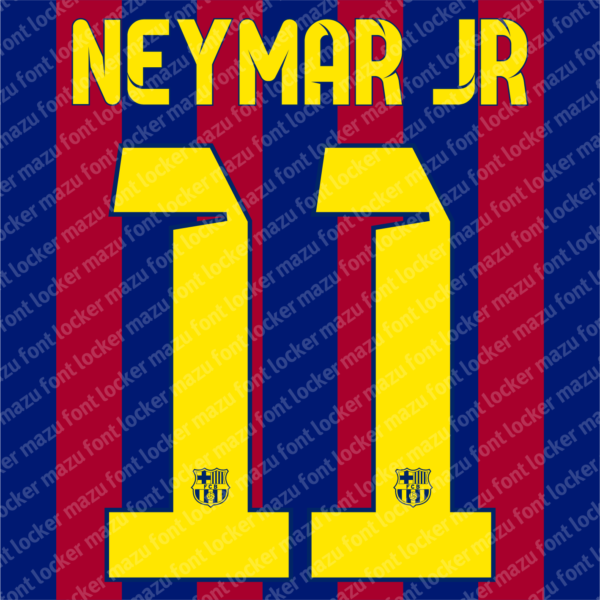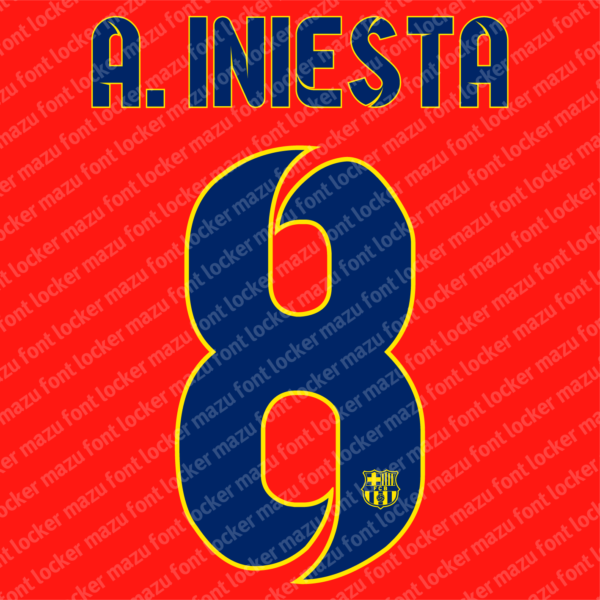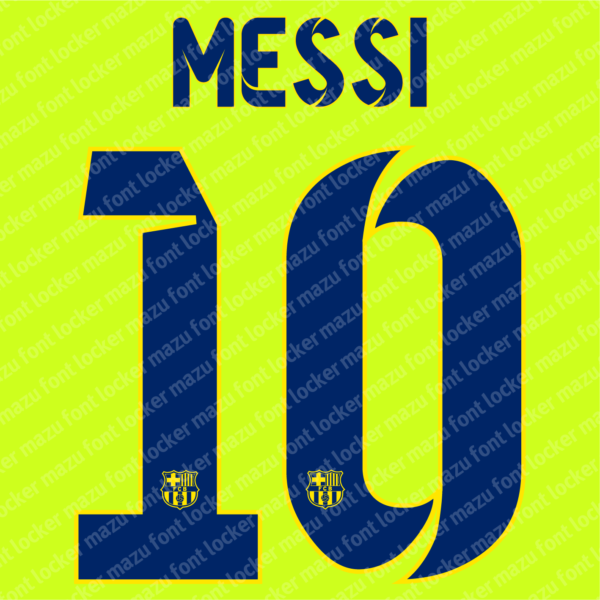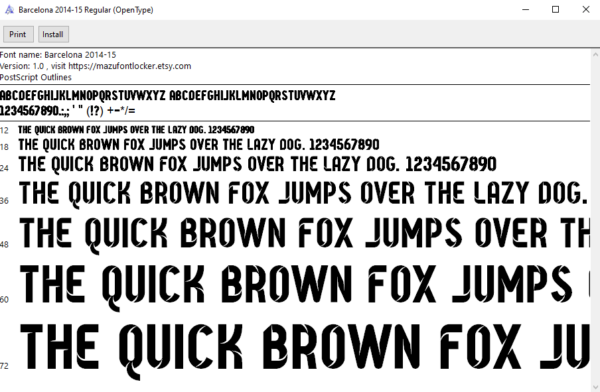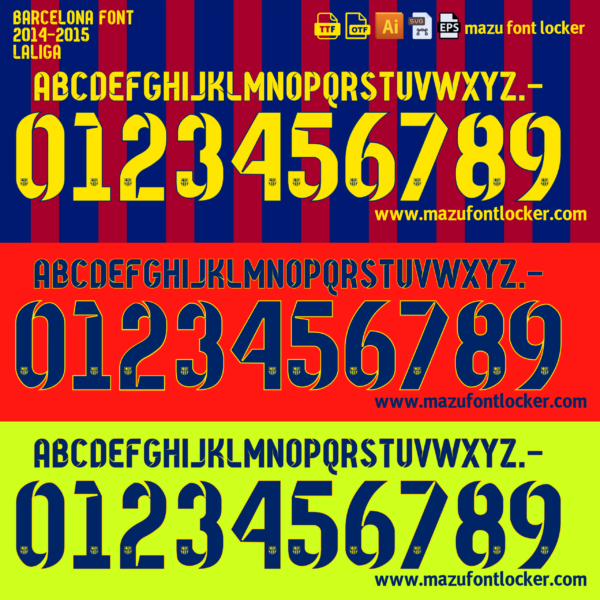
Barcelona 2014-2015 Font Vector – Legendary Treble Winning Jersey Style
Download the iconic Barcelona 2014-2015 Font and recreate the legendary look of one of football’s greatest seasons with authentic professional quality. Inspired by the official jersey lettering used during Barcelona’s historic 2014/15 treble-winning campaign, the Barcelona 2014-2015 Font captures the elegance, dominance, and unforgettable identity of a team that conquered Europe with style and brilliance.
Perfect for football designers, jersey customizers, sportswear creators, sublimation printing, fan merchandise, posters, and digital football artwork, the Barcelona 2014-2015 Font delivers clean scalability, razor-sharp detailing, and a truly professional finish. Whether for personal collections or commercial creative work, this classic football font brings the spirit of Barcelona’s unforgettable 2014/15 season back to life in stunning detail.
Barcelona 2014-2015 Font Vector
The Barcelona 2014-2015 Font is a premium, high-precision football jersey font vector meticulously engineered to capture the legendary dominance, elegant style, and unstoppable attacking power of Barcelona’s historic treble-winning era.
Inspired by the iconic 2014/15 campaign that conquered Europe and defined a generation of football greatness, this font unleashes a bold, dynamic, and world-class presence that radiates confidence, prestige, and pure football artistry. Every letter and number has been painstakingly recreated with razor-sharp precision to embody the fearless attacking philosophy, championship mentality, and timeless Catalan identity that made Barcelona one of the most admired teams in football history.
Feel the magic of Camp Nou. Ignite the passion of tiki-taka greatness. Unleash the legendary spirit of Barcelona’s golden era.
🔥 Barcelona 2014-2015 Font Features
• Authentic 2014-2015 Barcelona jersey lettering style
The authentic lettering style helps recreate the classic look of the Barcelona 2014-2015 kit with professional accuracy.
Unlike generic jersey fonts, this set is designed with a strong focus on authenticity and accuracy. Every detail is based on the original match lettering style used during the 2014-2015, helping designers and collectors create realistic football shirt designs.
This Barcelona 2014-2015 font vector set is designed for authentic football jersey customization and works perfectly for retro football projects, collector designs, and professional sportswear artwork.